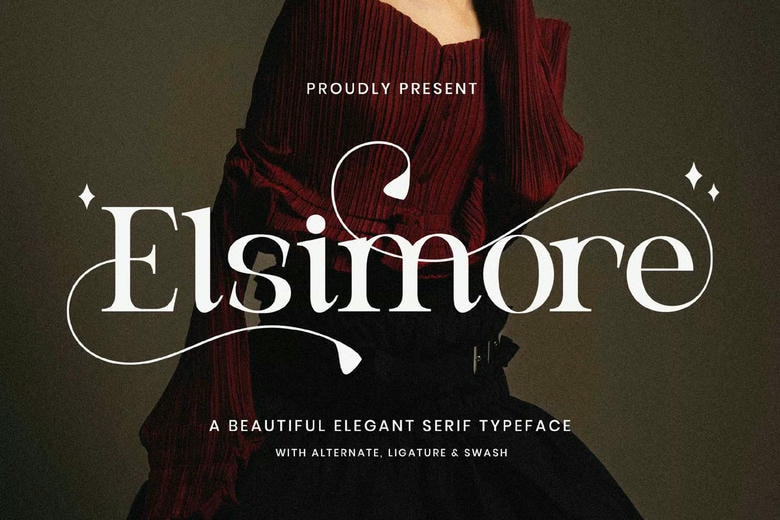
Elsimore Font
Elsimore is an elegant serif font that blends timeless beauty with modern sophistication. With its graceful curves, refined contrast, and classic letterforms, Elsimore is designed to elevate your most meaningful designs with a touch of charm and luxury.
Perfectly suited for branding, wedding stationery, editorial layouts, packaging, and upscale logos, Elsimore brings a soft, romantic elegance to every composition. Each glyph is meticulously crafted to balance delicacy with clarity, making your text both stylish and readable.
Elsimore Serif Font